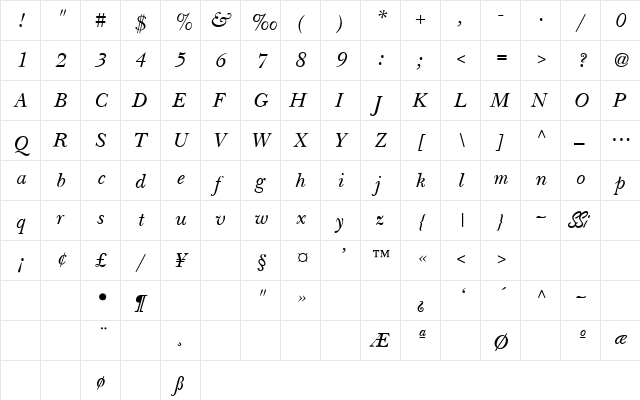
Baskerville Light SSi Light Italic Font Preview
Design Context for Baskerville Light SSi Typeface
Baskerville Light SSi is a composed and adaptable typeface that performs quietly and consistently across a wide range of design contexts. Its italic angle brings a sense of urgency and motion to the letterforms. Its slender proportions lend an understated elegance to any composition.
Pro Tip: Try Baskerville Light SSi for annotation and caption copy alongside an upright companion — the contrast in angle creates a dynamic but ordered typographic system.